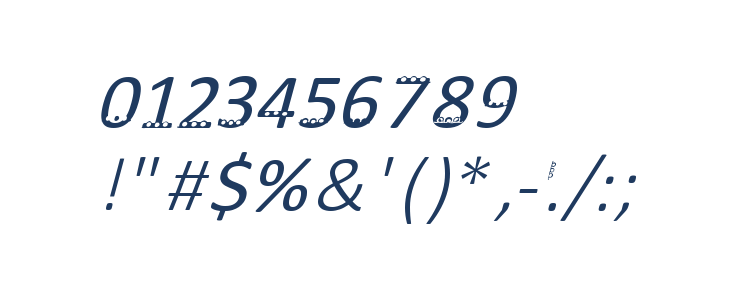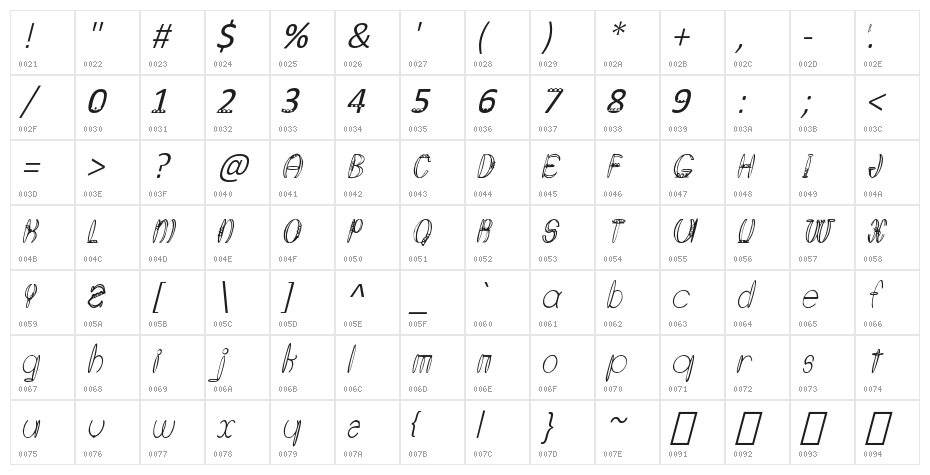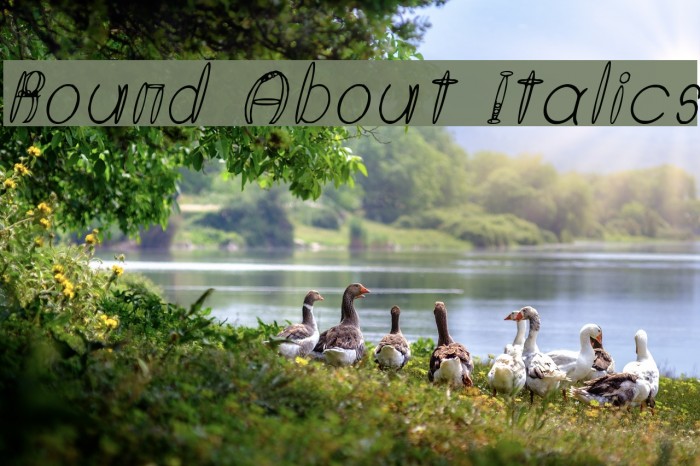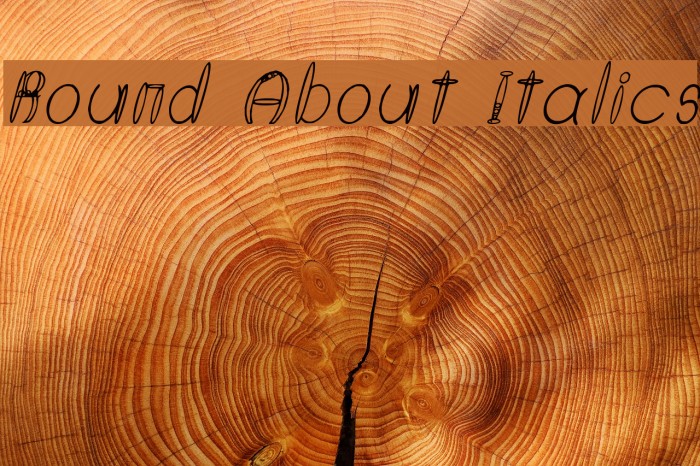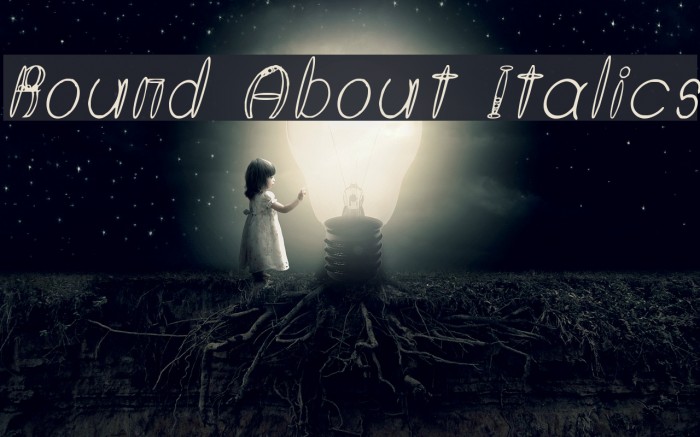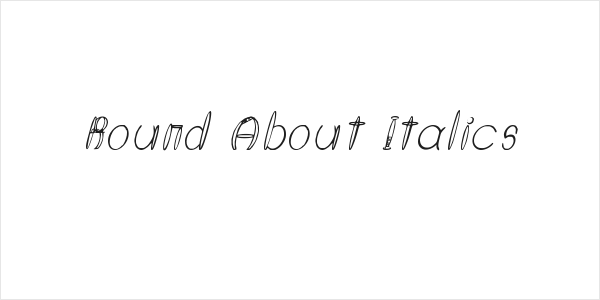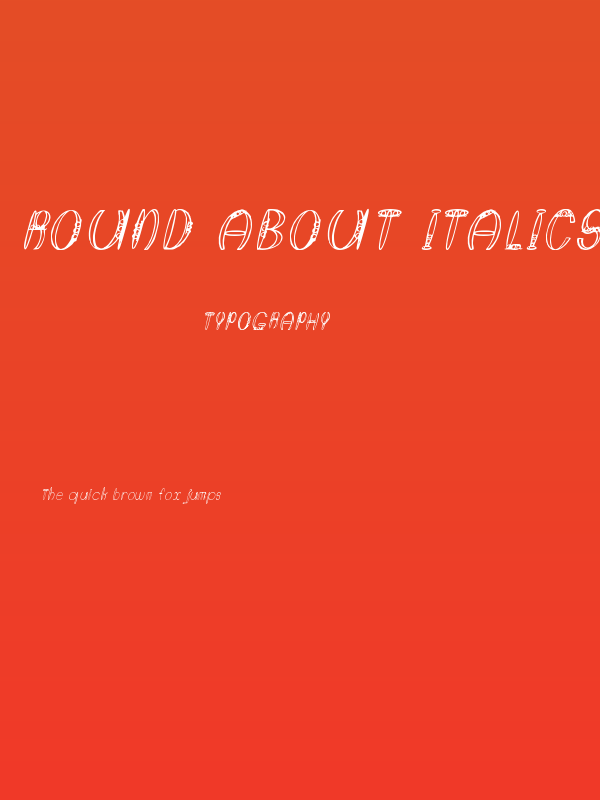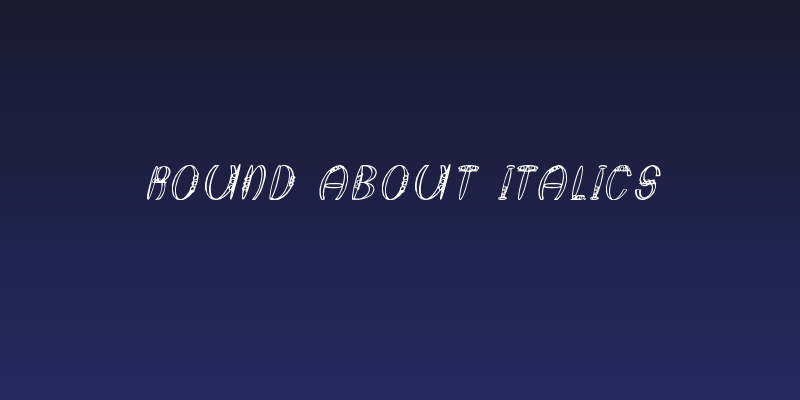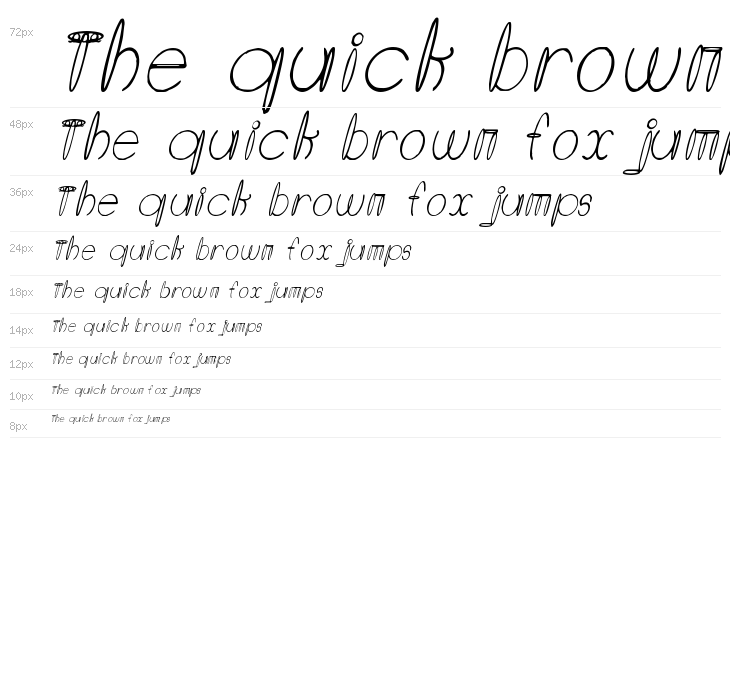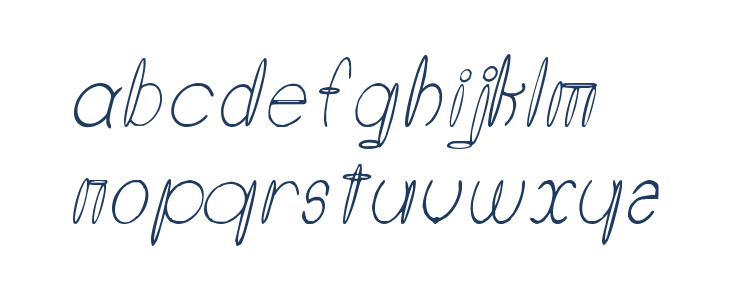
Round About Italics Font
Round About Italics Description
This playful and whimsical font features a unique blend of decorative elements and italicized strokes. Each letter is adorned with small, circular embellishments that add a sense of fun and creativity. The uppercase letters are bold and dynamic, while the lowercase letters maintain a consistent flow with a slightly more subdued appearance. Numbers and special characters follow the same decorative theme, making the font cohesive across all elements. The overall design is lively and engaging, perfect for projects that require a touch of personality and flair.